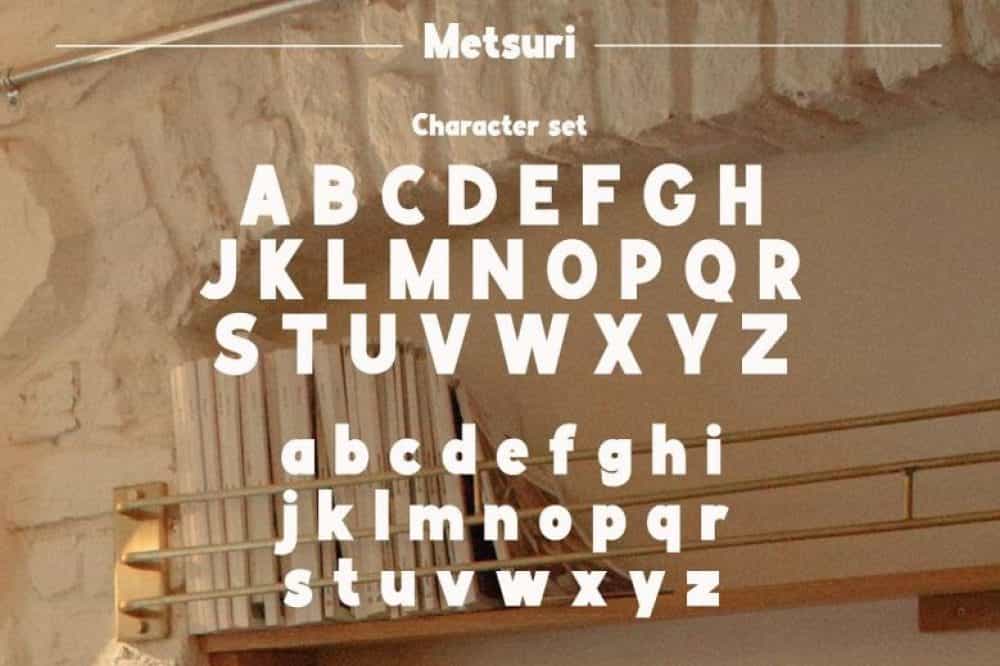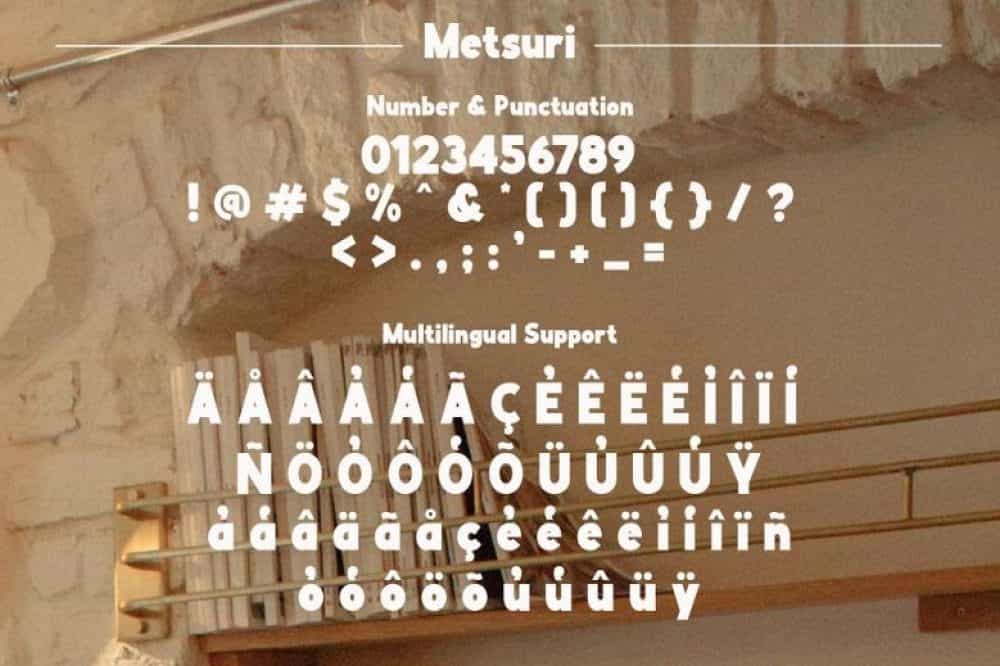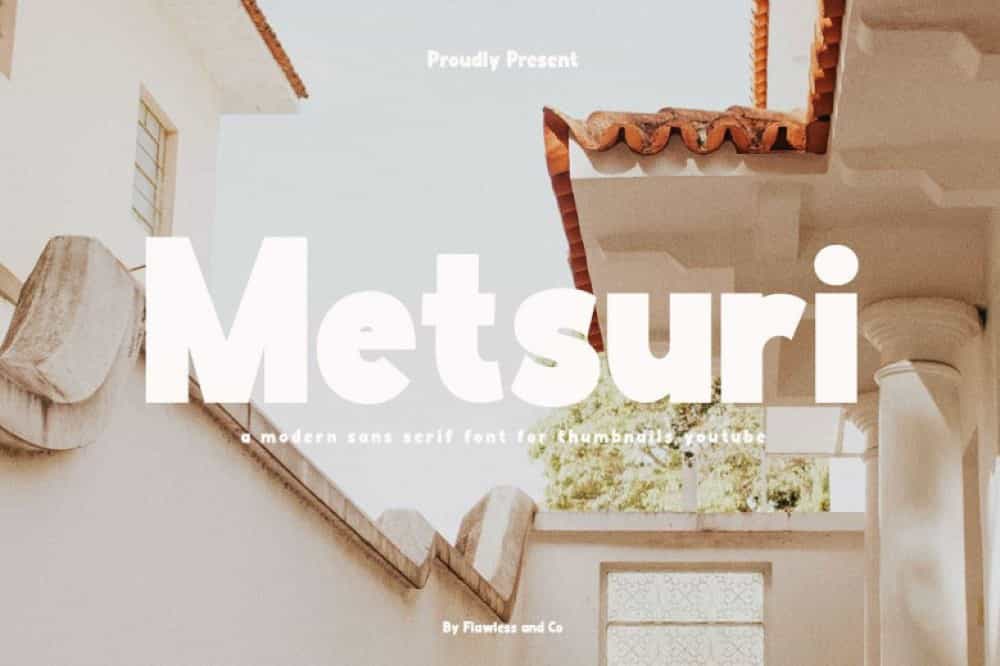
Metsuri is a bold and eye-catching sans-serif font that is perfect for YouTube thumbnail design and other similar purposes. Moreover, clean and geometrical shapes of the theme give Metsuri a touch of the contemporary and professional look which can fit any YouTube channel.